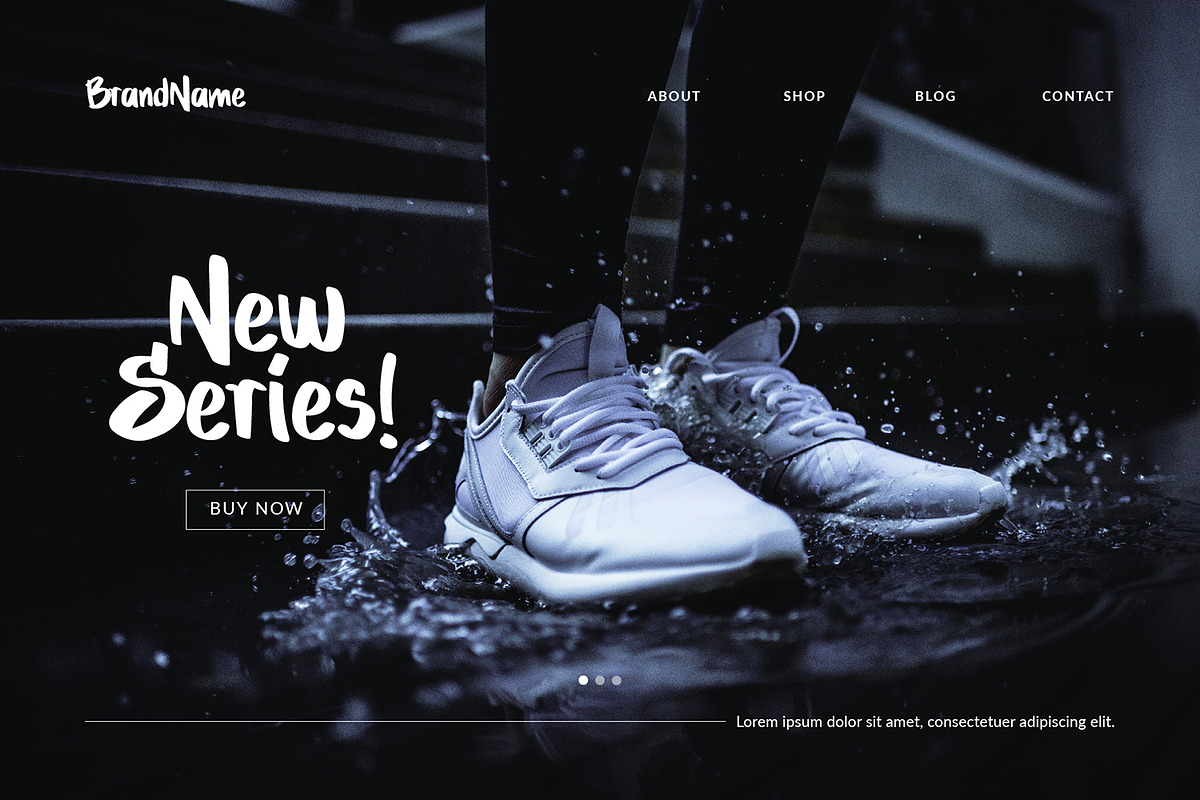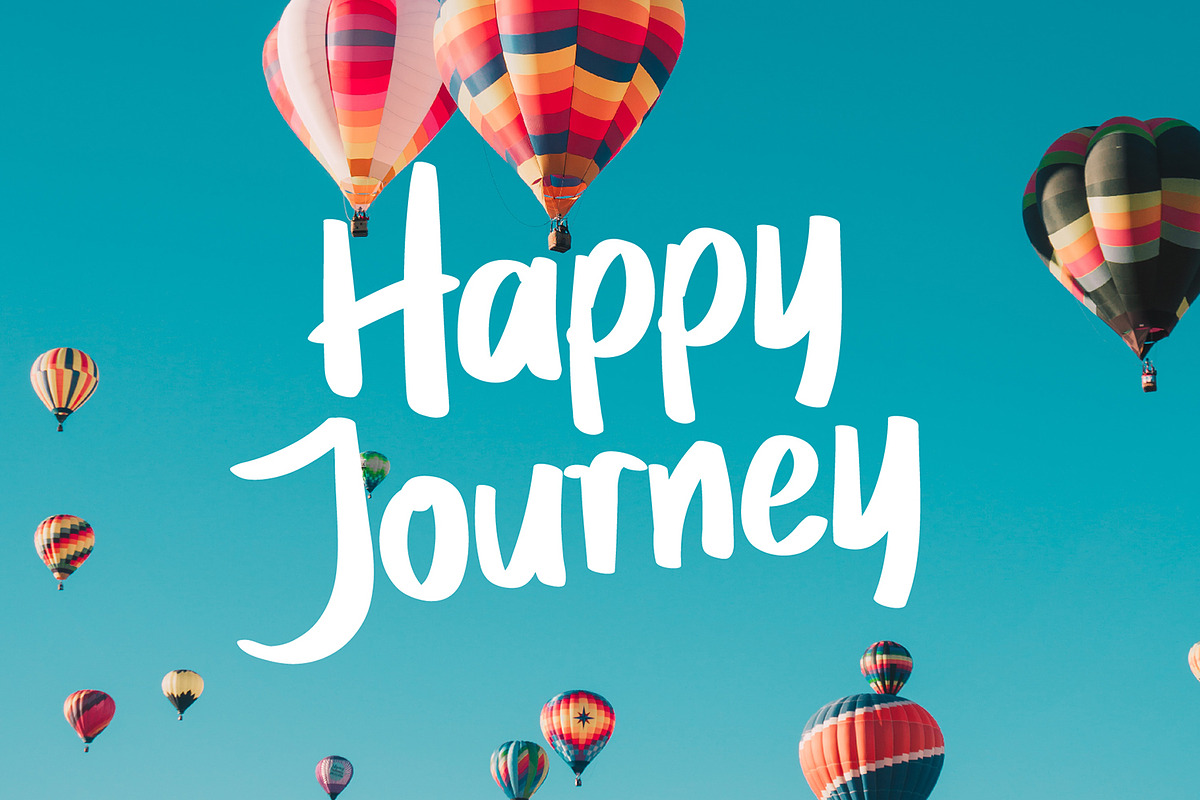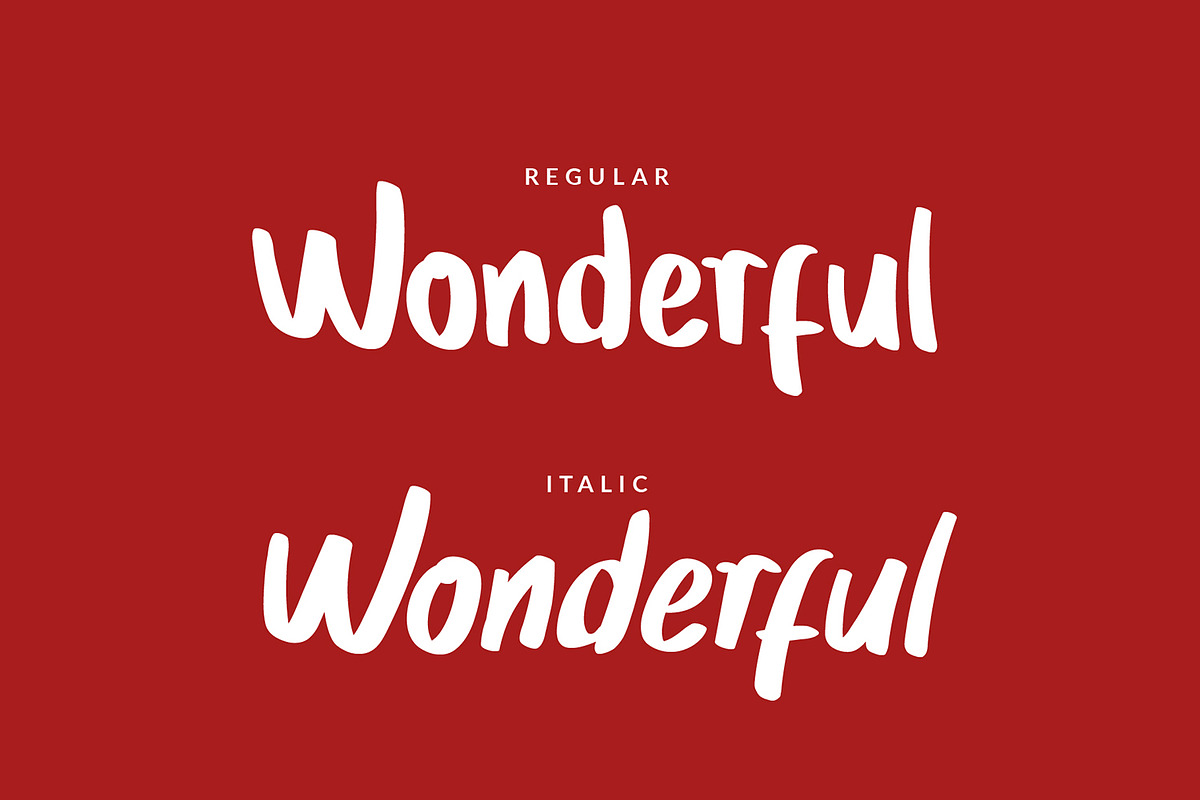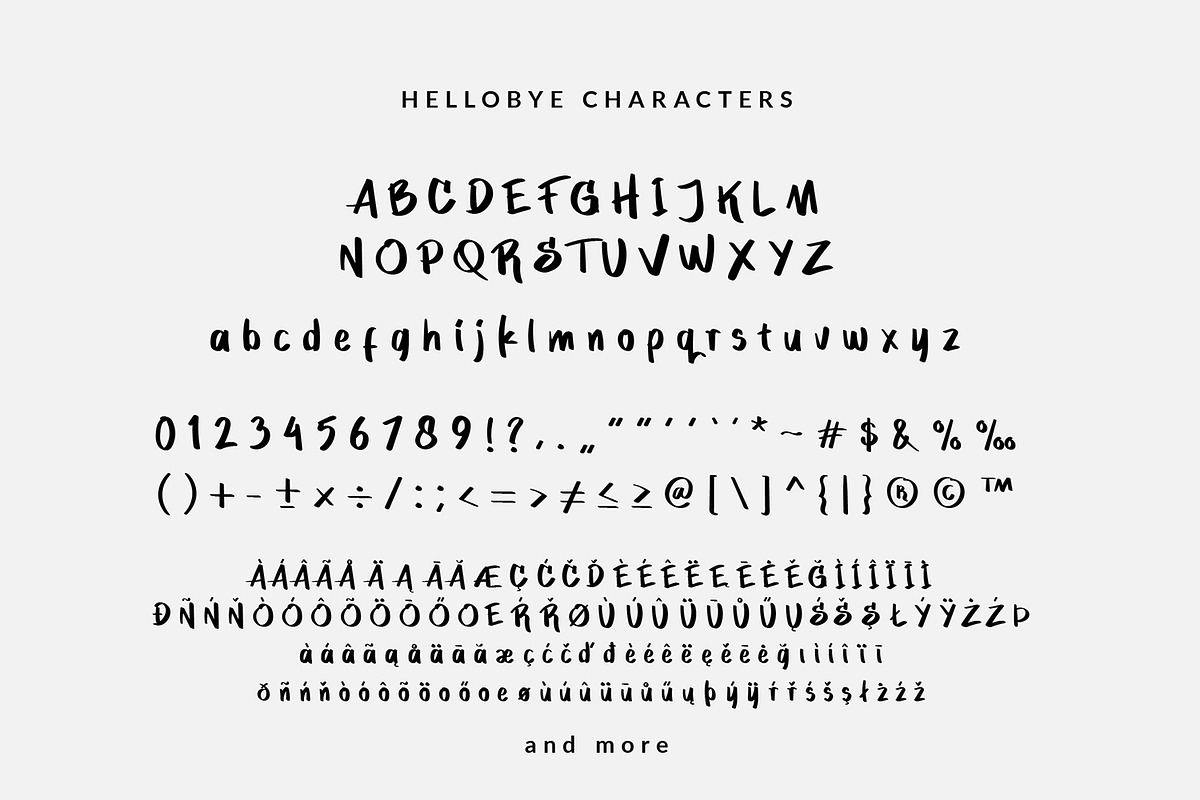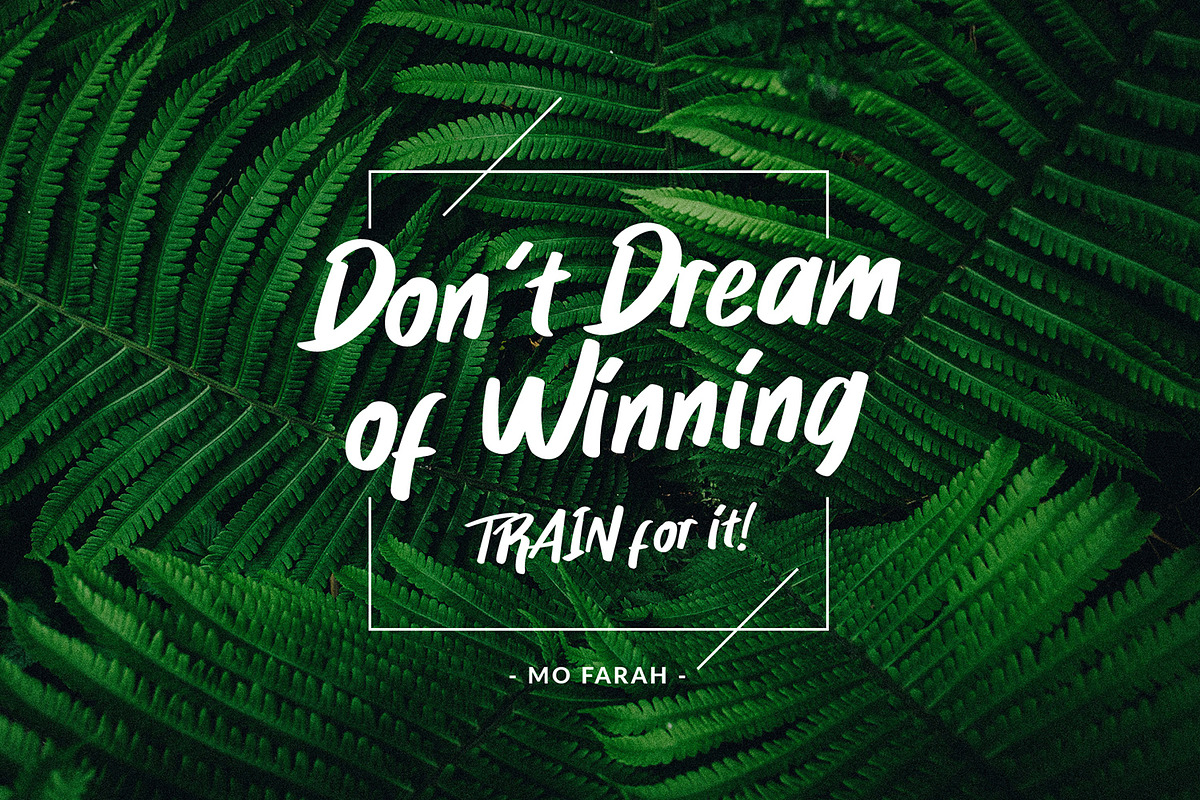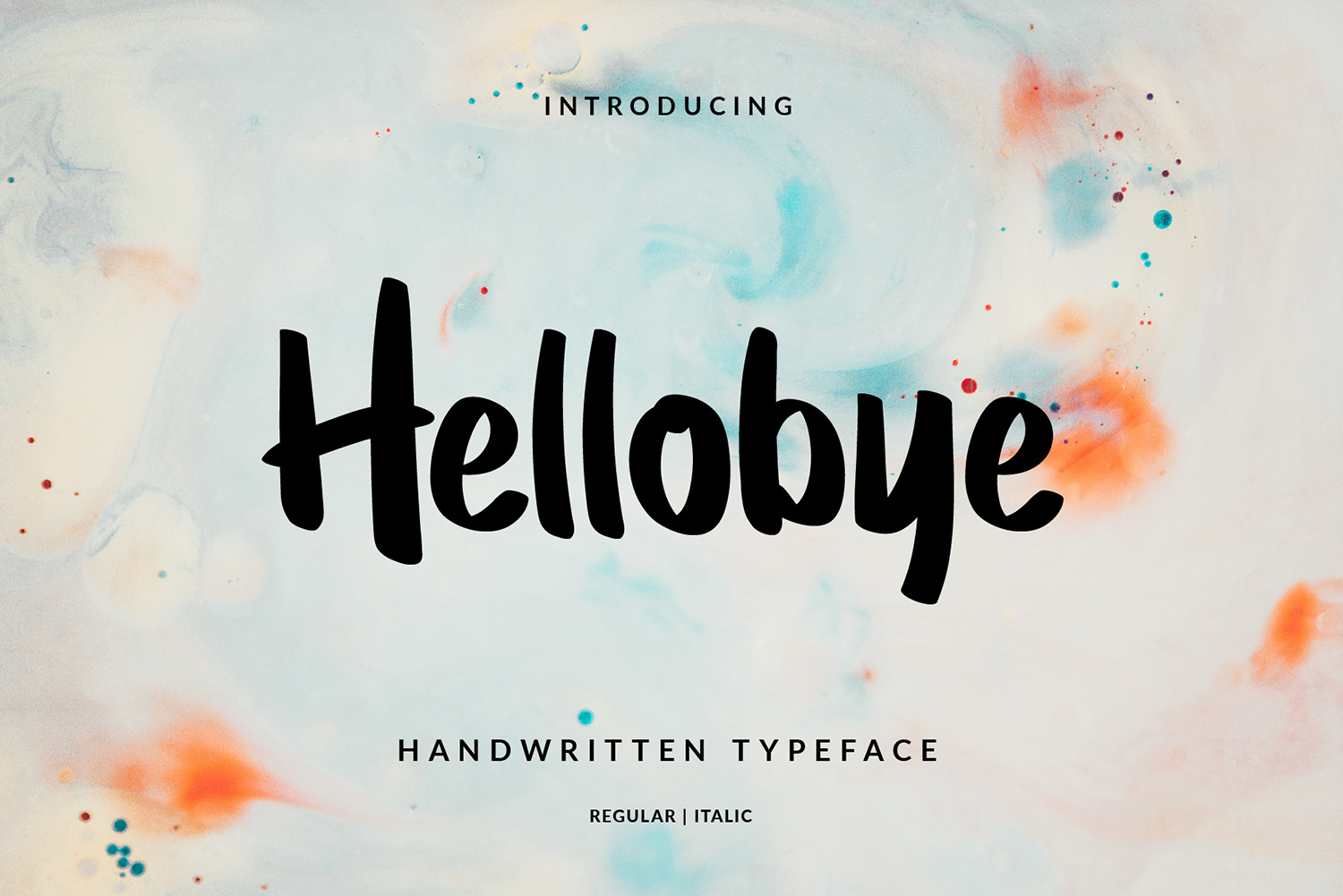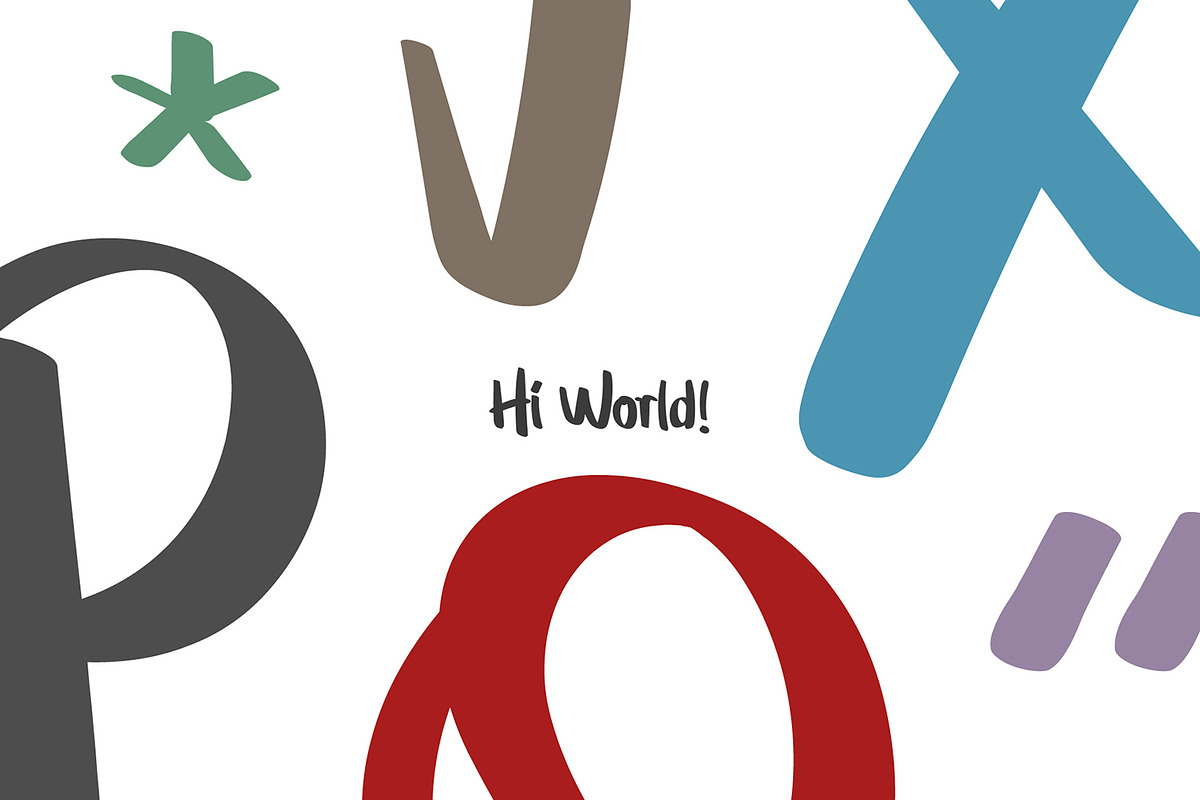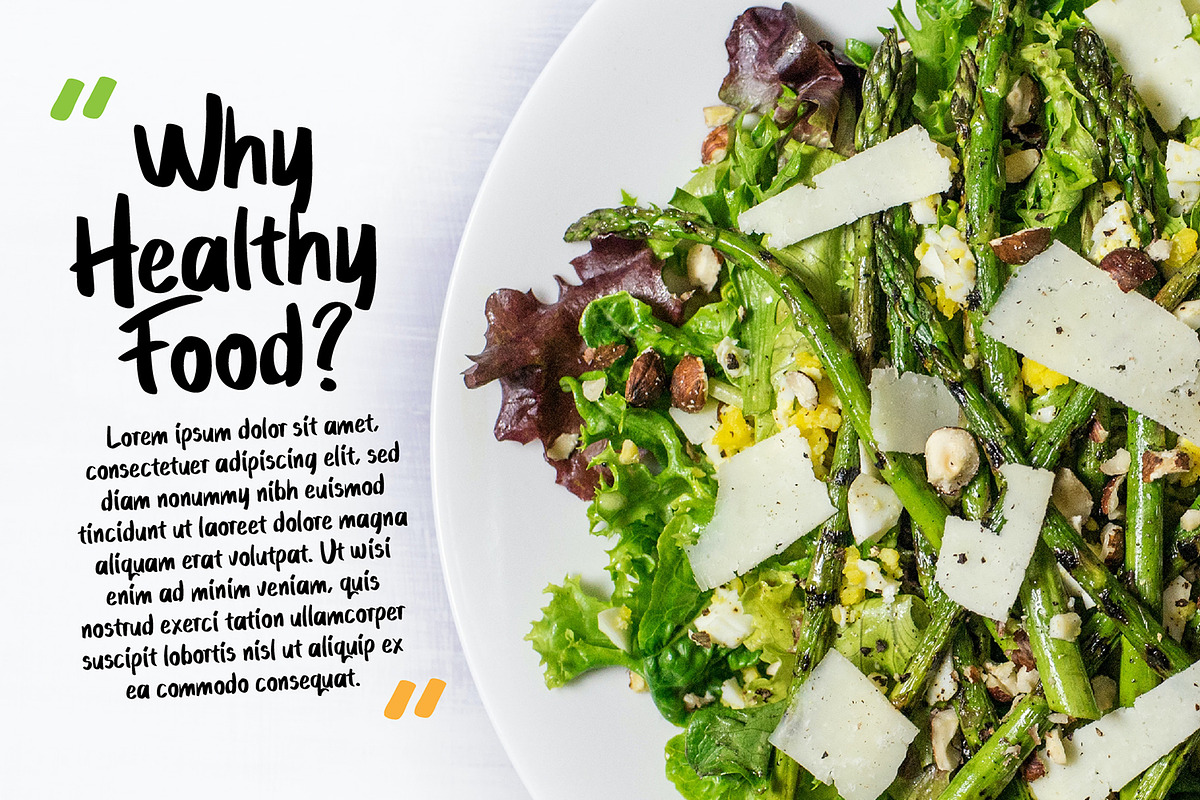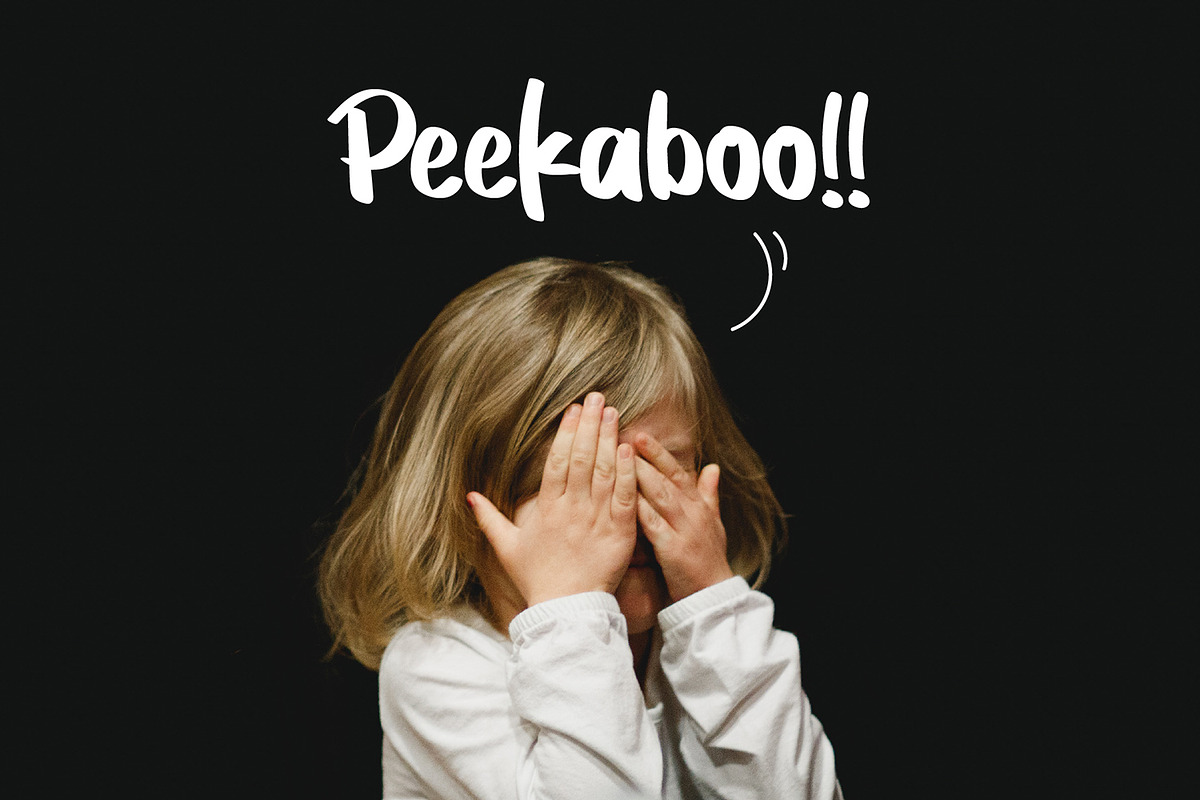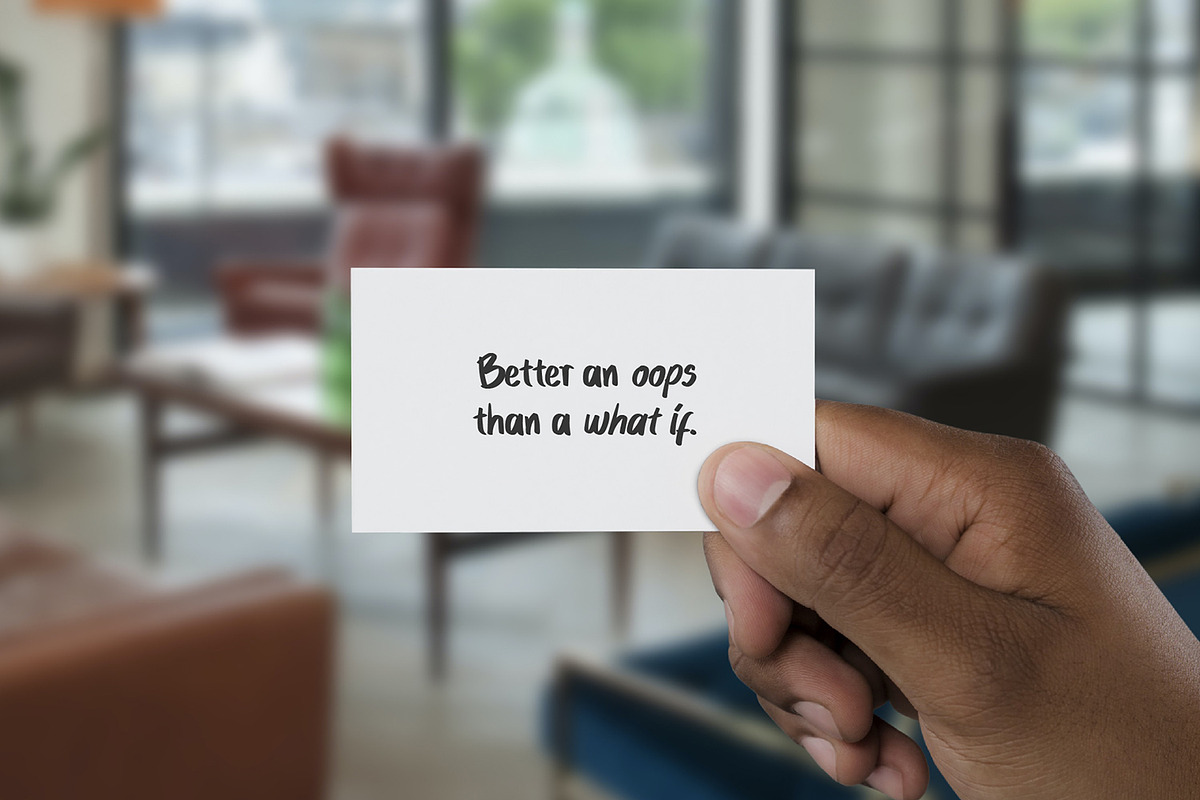
Hellobye Playful Font
Hellobye is a casual typeface/font designed with carefully handcrafted. This perfectly made to be applied in logo or branding, stationery, books, packaging, fashion, magazines, t-shirt, greeting or wedding cards, vintage design, novels, labels and many advertising purposes.